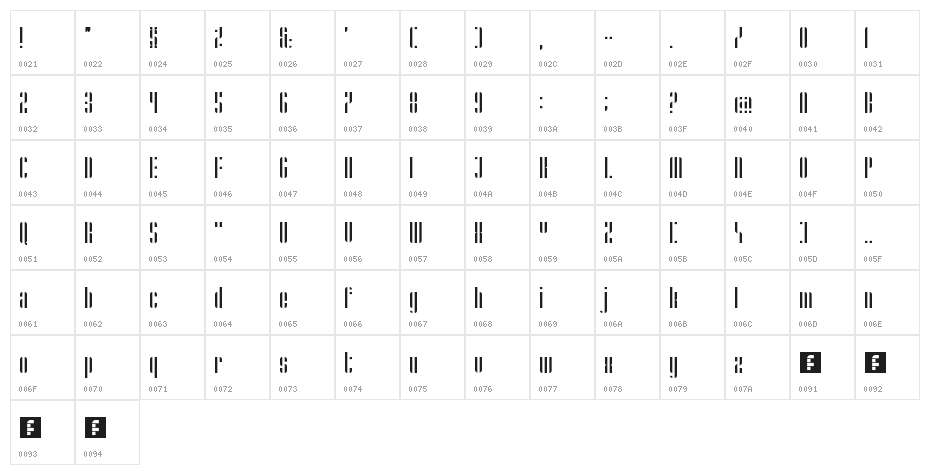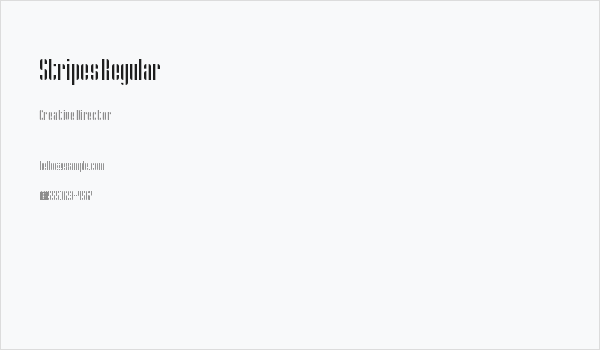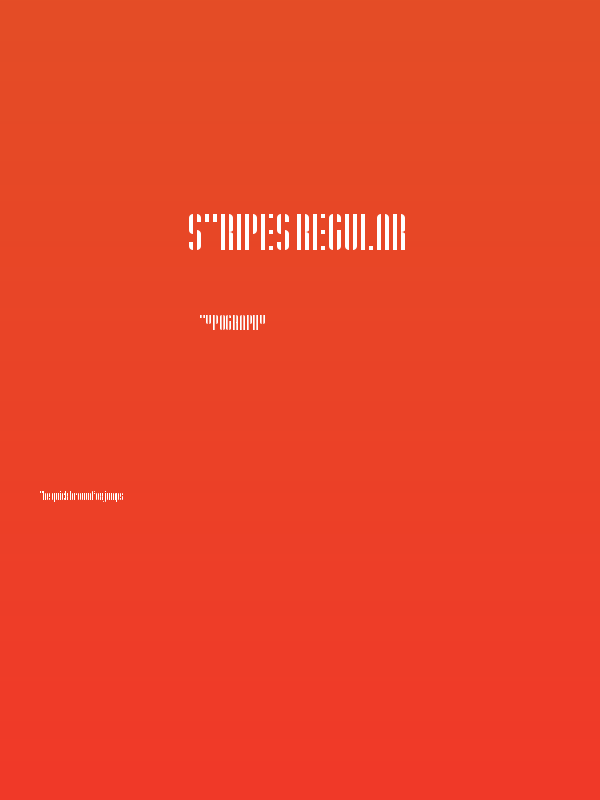
Stripes Regular Font
Stripes Regular Description
This font features a bold, modern design with a distinctive striped pattern running vertically through each character. The uppercase and lowercase letters maintain a consistent width, creating a uniform appearance. The numerals and special characters follow the same striped style, ensuring a cohesive look across all text. The font's unique design makes it highly suitable for eye-catching displays and creative projects where a bold statement is desired. Its geometric structure and high contrast between the stripes and the background give it a striking and memorable appearance.
| Proposed Projects | Ideal for posters, branding, headlines, and any project requiring a bold, modern aesthetic. |